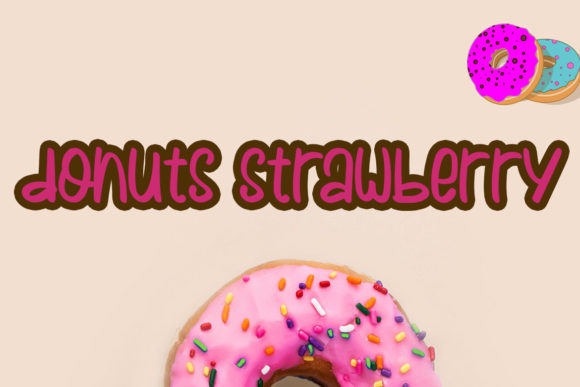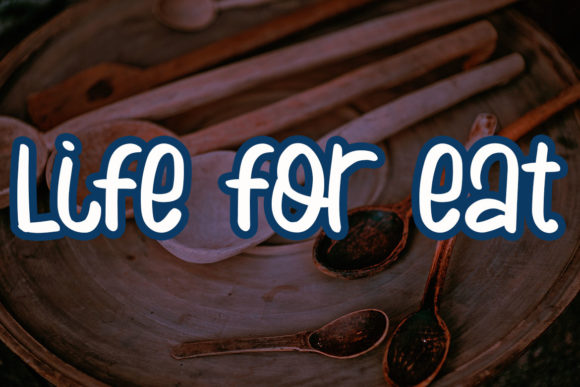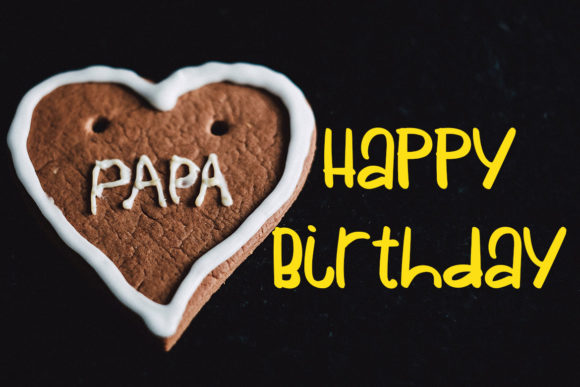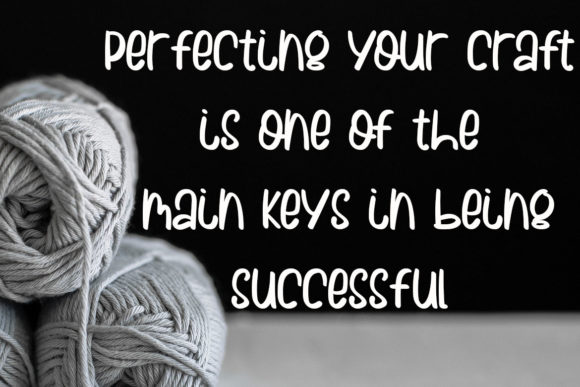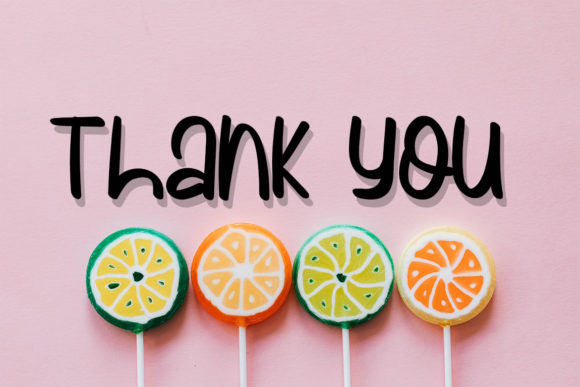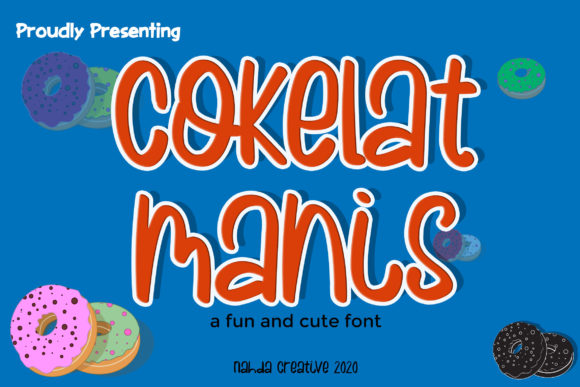
Cokelat Manis Font: Unleash Your Creativity with this Playful and Cute Handwriting Font
Are you a designer, crafter, or DIY enthusiast looking for a unique and gorgeous font to bring your projects to life? Look no further than Cokelat Manis, a playful and cute handwriting font that’s sure to add a touch of personality to any design. In this article, we’ll explore the features and benefits of Cokelat Manis, and show you how to use it to take your DIY projects to the next level.
What is Cokelat Manis?
Cokelat Manis is a handwriting font that’s inspired by the sweetness and playfulness of Indonesian culture. The name “Cokelat Manis” literally translates to “sweet chocolate” in English, which reflects the font’s warm and inviting personality. With its unique and quirky letterforms, Cokelat Manis is the perfect font for designers and crafters who want to add a touch of whimsy to their projects.
Features of Cokelat Manis
Cokelat Manis is more than just a font – it’s a design statement. Here are some of its key features:
- Playful and cute: Cokelat Manis is a handwriting font that’s full of personality. Its playful and cute letterforms are sure to bring a smile to anyone’s face.
- Unique and quirky: Unlike other handwriting fonts, Cokelat Manis has a distinctive and quirky style that’s all its own.
- Easy to read: Despite its playful nature, Cokelat Manis is surprisingly easy to read, making it perfect for use in a variety of design projects.
- Versatile: Cokelat Manis can be used for a wide range of design projects, from DIY crafts to professional branding.
Benefits of Using Cokelat Manis
So why should you choose Cokelat Manis for your design projects? Here are just a few benefits:
- Adds personality: Cokelat Manis is a font that’s full of personality, and can help you add a unique touch to your design projects.
- Stand out from the crowd: With its quirky and distinctive style, Cokelat Manis can help your designs stand out from the crowd.
How to Use Cokelat Manis in Your Design Projects
So how can you use Cokelat Manis in your design projects? Here are a few ideas:
- DIY crafts: Cokelat Manis is perfect for use in DIY crafts, such as handmade cards, gift tags, and scrapbooking.
- Branding and packaging: Cokelat Manis can be used to add a touch of personality to branding and packaging designs.
- Signage and posters: Cokelat Manis is a great font for use in signage and posters, where its playful and eye-catching style can really shine.
- Digital designs: Cokelat Manis can be used in digital designs, such as social media graphics, blog posts, and email newsletters.
Cokelat Manis is a playful and cute handwriting font that’s perfect for designers and crafters who want to add a touch of personality to their projects. With its unique and quirky letterforms, Cokelat Manis is sure to bring a smile to anyone’s face. Whether you’re working on a DIY craft or a professional design project, Cokelat Manis is a great choice. So why not give it a try and see how it can bring your designs to life?